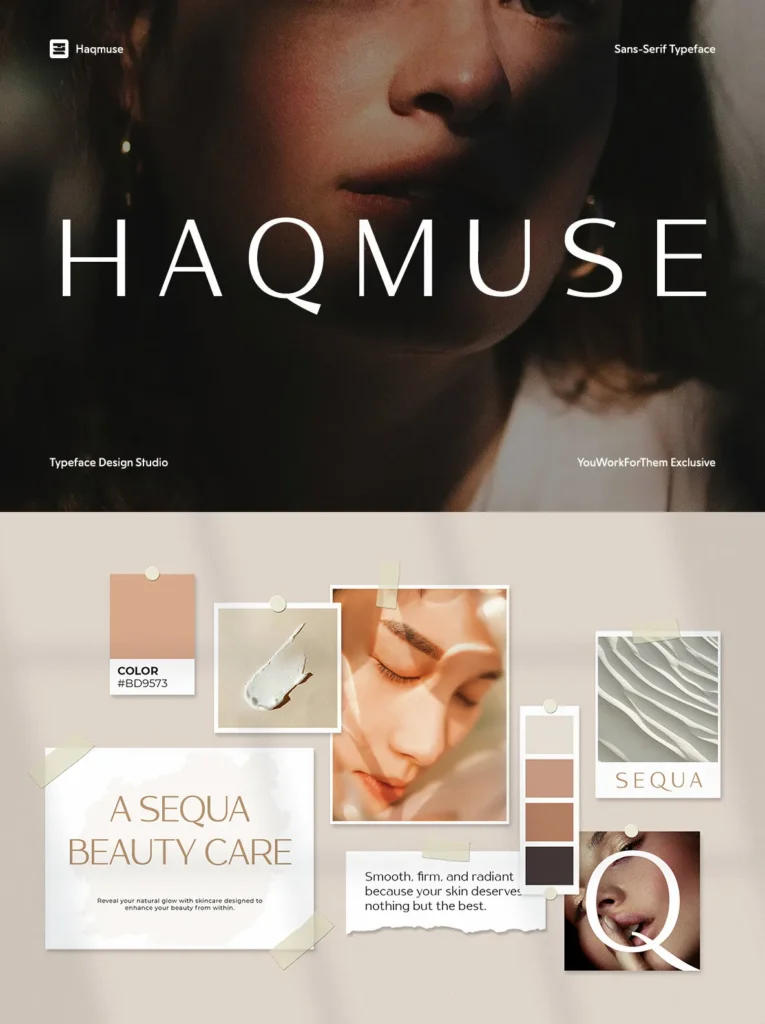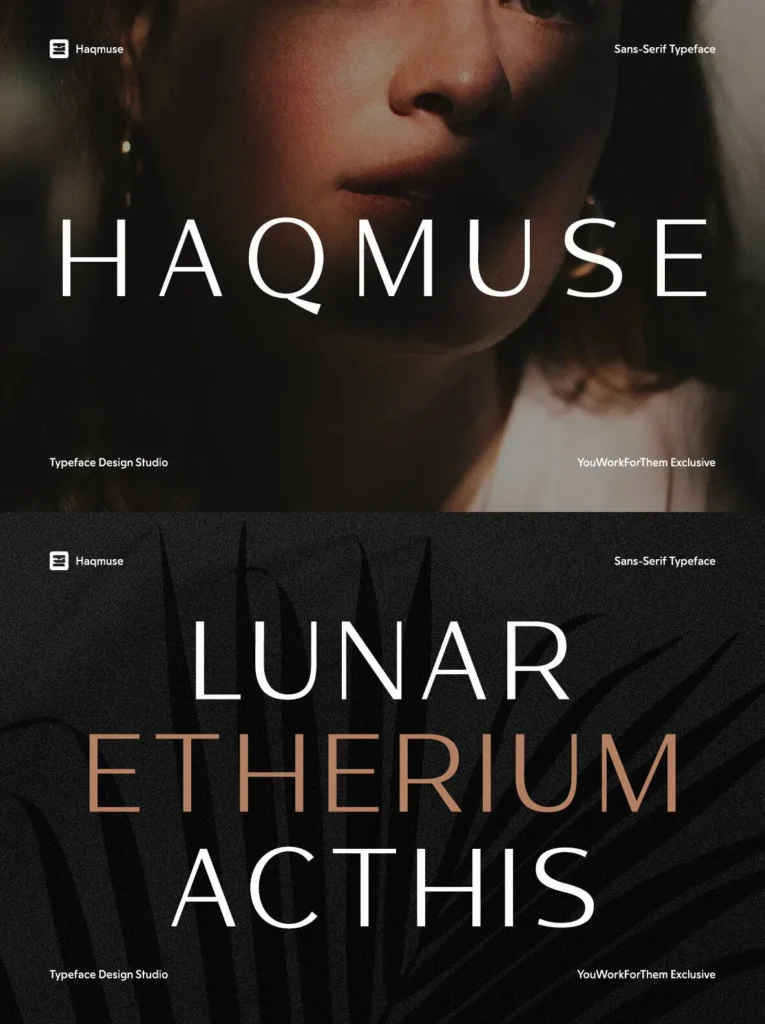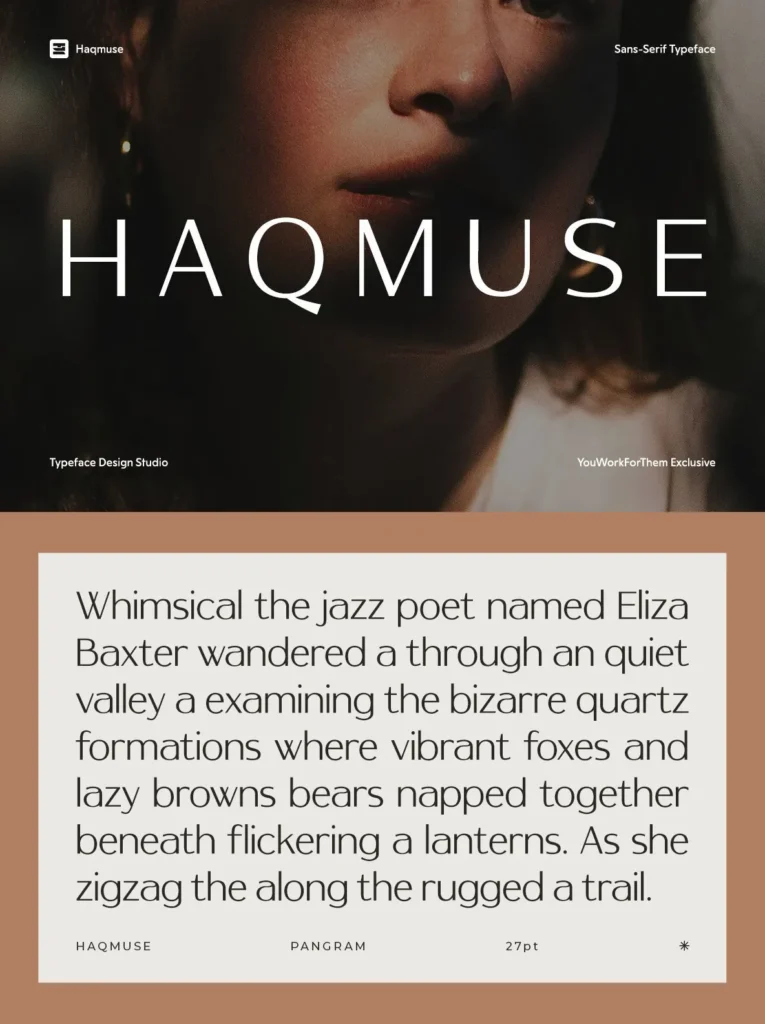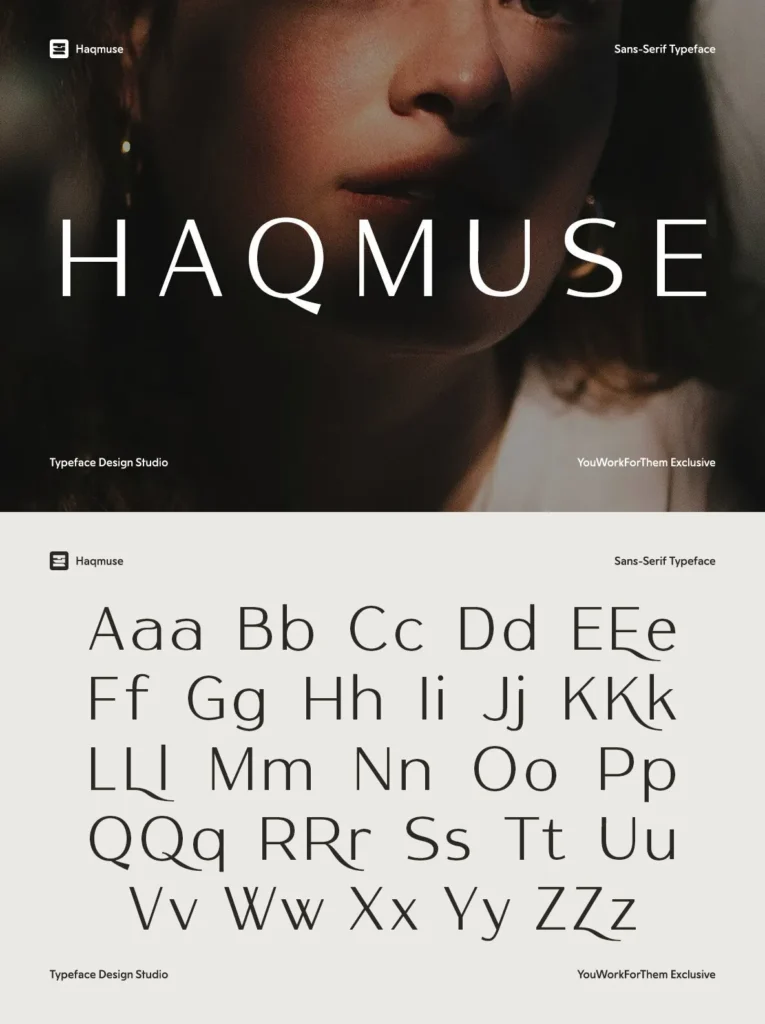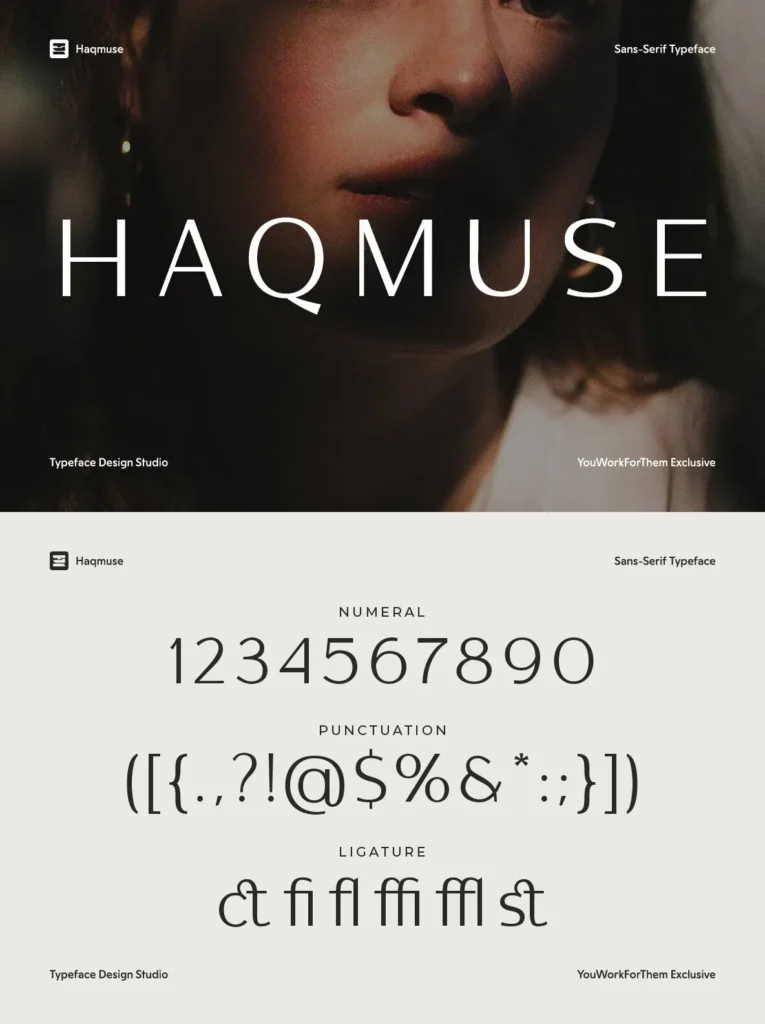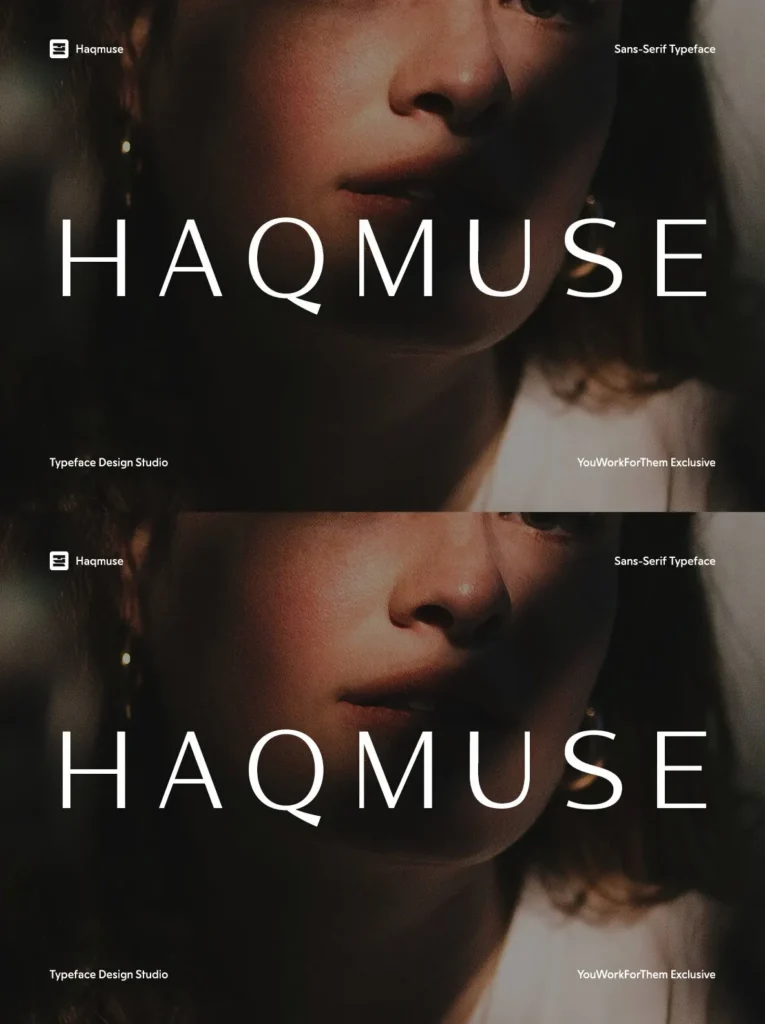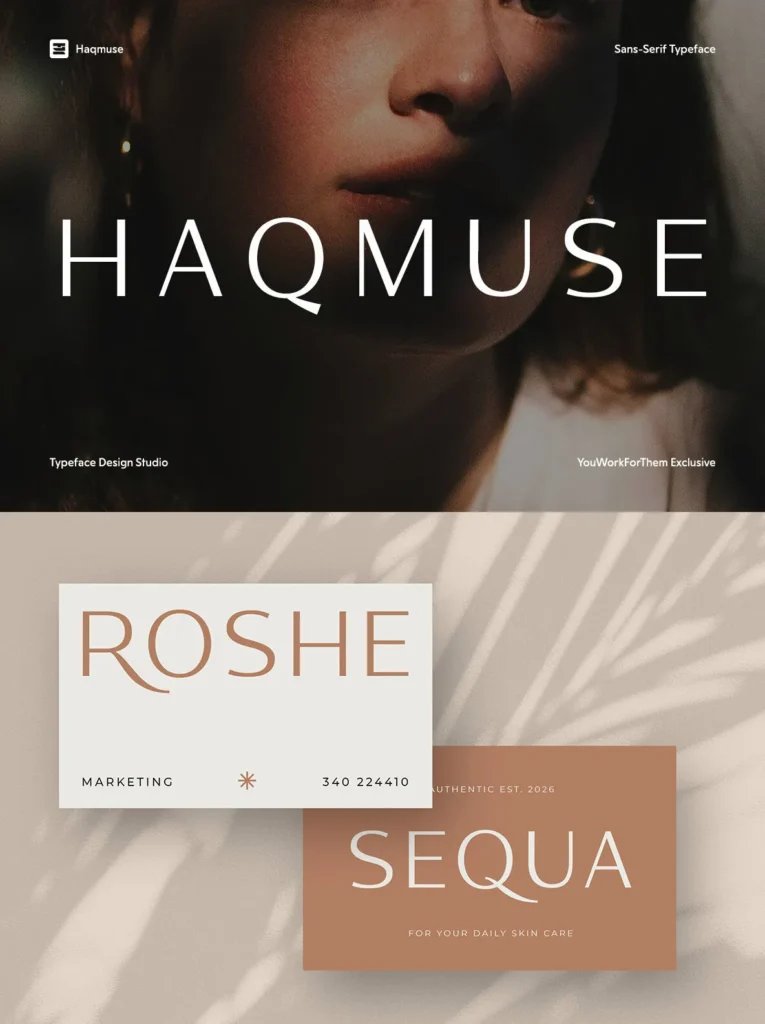
Haqmuse: Refined Sans for Luxury Systems
A modern sans serif typeface designed for clarity, sophistication, and versatility. Crisp lines and an understated structure create a confident typographic voice for refined work in fashion, cosmetics, publishing, and high-end branding. Designed by Typia Nesia Std., it suits projects that need a quiet, polished presence without losing character.
Open forms and balanced letter spacing support reliable readability across sizes and formats. Each character shows graceful restraint, which helps layouts feel composed and intentional. Use Haqmuse in print and digital applications where branding, editorial design, and signage depend on clean details and consistent rhythm.
Minimalist sans serif style with gentle curves and precise geometry
Polished appearance for contemporary or luxury visuals
Outstanding legibility in headlines, logos, and editorial layouts
Versatile fit for fashion, packaging, magazine titles, and signage